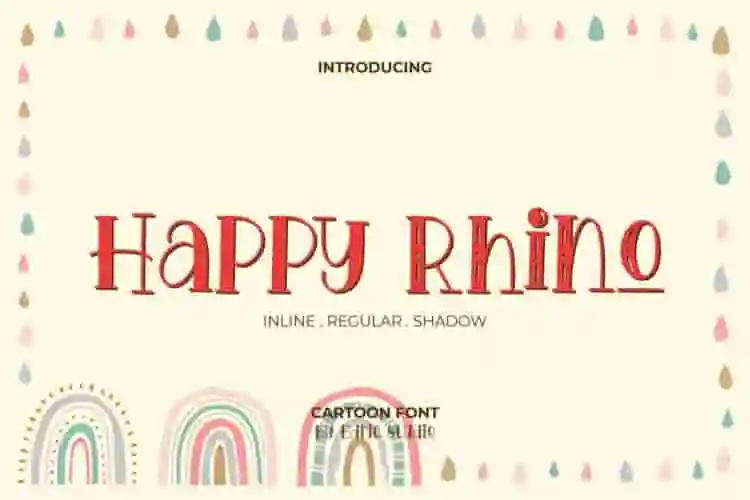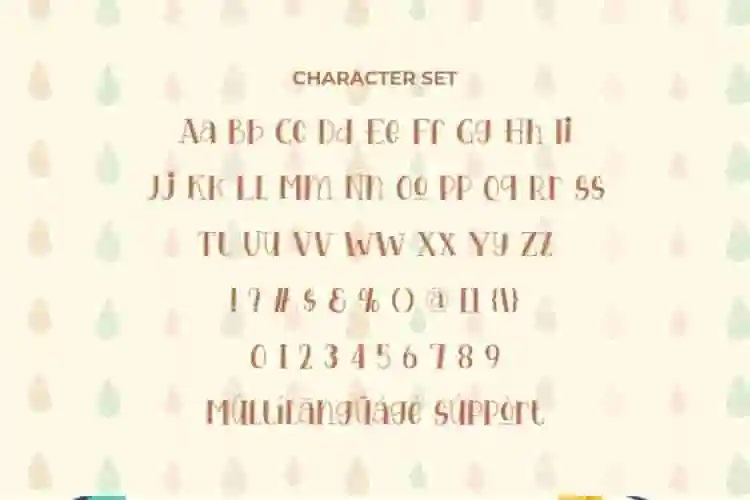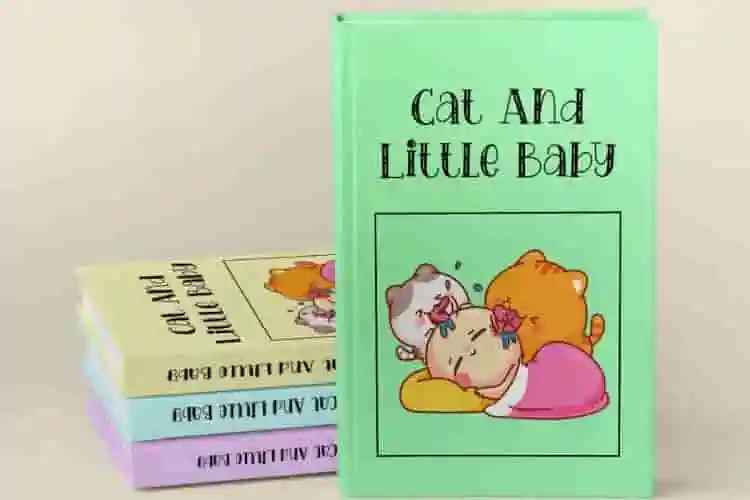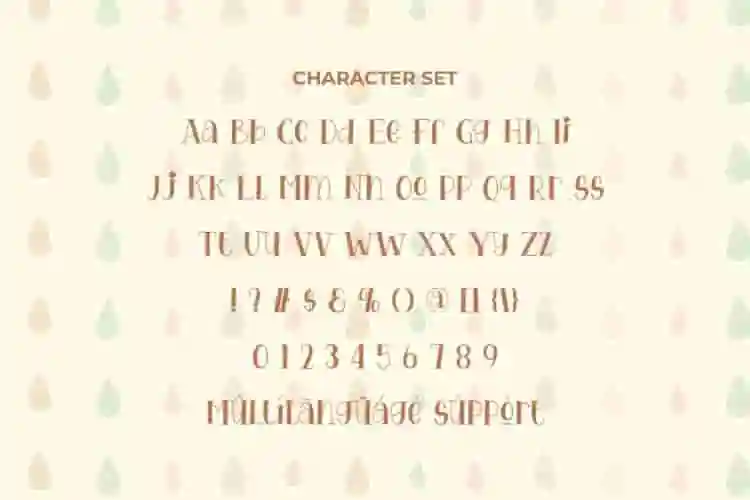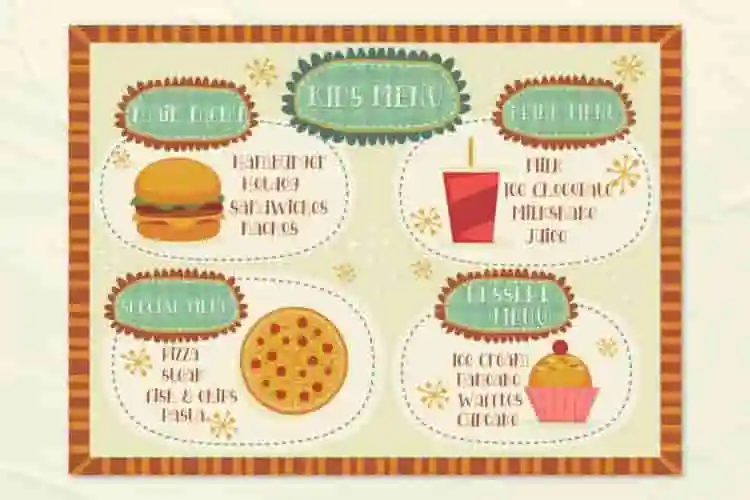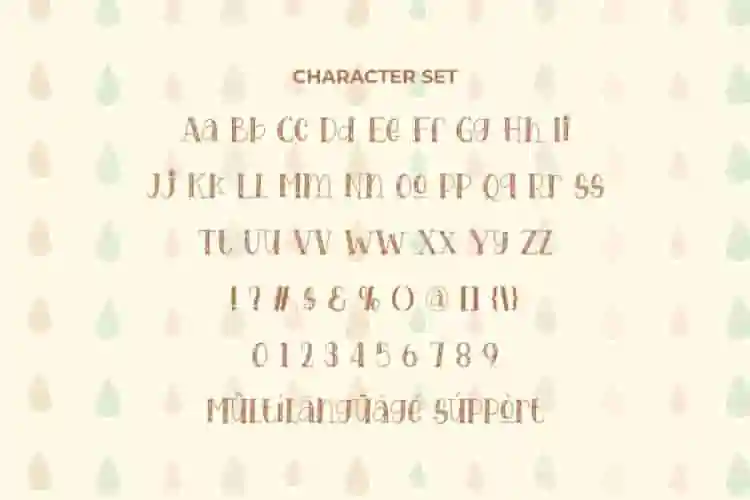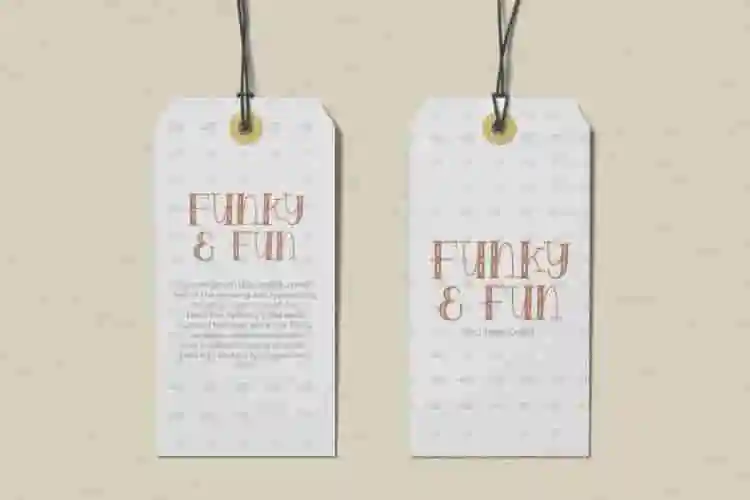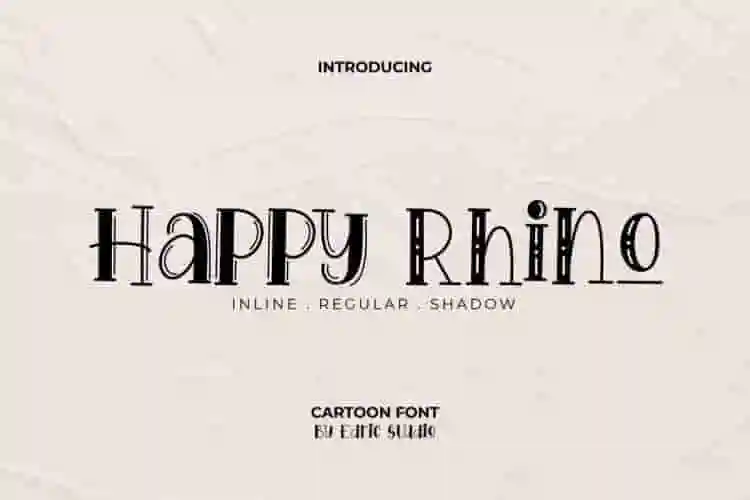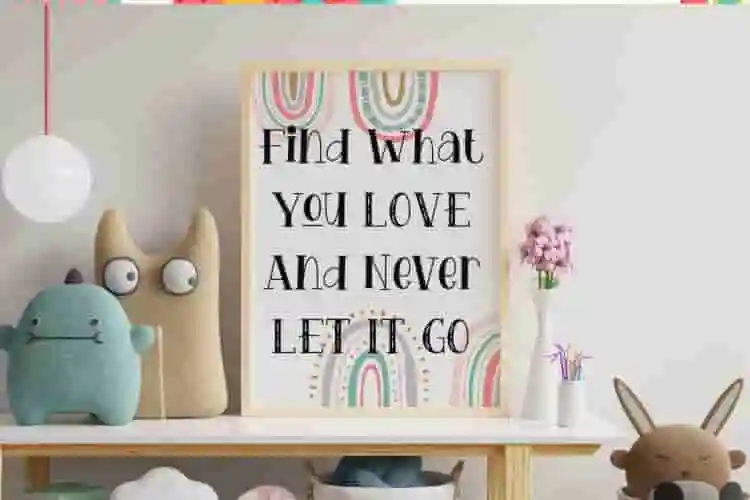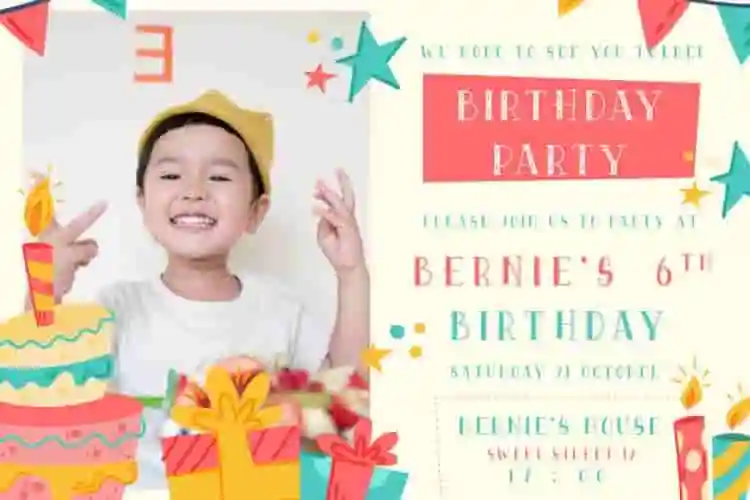
Happy Rhino Font is a playful display font from EdricStudio. The font comes with three different style options : Regular, Shadow and Inline. The theme of this font are cute, funny, kids, cartoon and any other fun projects while still easy to use read. This font perfect for branding projects, birthday card, book title, clothing brand, labels, logo design, magazine headers, menu flyer, product packaging, or simply as a stylish text overlay to any background image.
Looking for a fun, eye-catching display font that brings joy to your designs? Meet Happy Rhino – a bold and playful display font perfect for grabbing attention and sparking imagination!
Whether you’re working on a children’s book, logo, poster, packaging, or YouTube thumbnails, Happy Rhino adds a dose of fun and personality to every project. Designed with quirky curves and chunky letterforms, this font instantly sets a cheerful tone.
Tired of using the same old fonts that don’t match your creative energy? It’s time to meet your new best friend: Happy Rhino – a playful, bold display font that brings imagination to life.